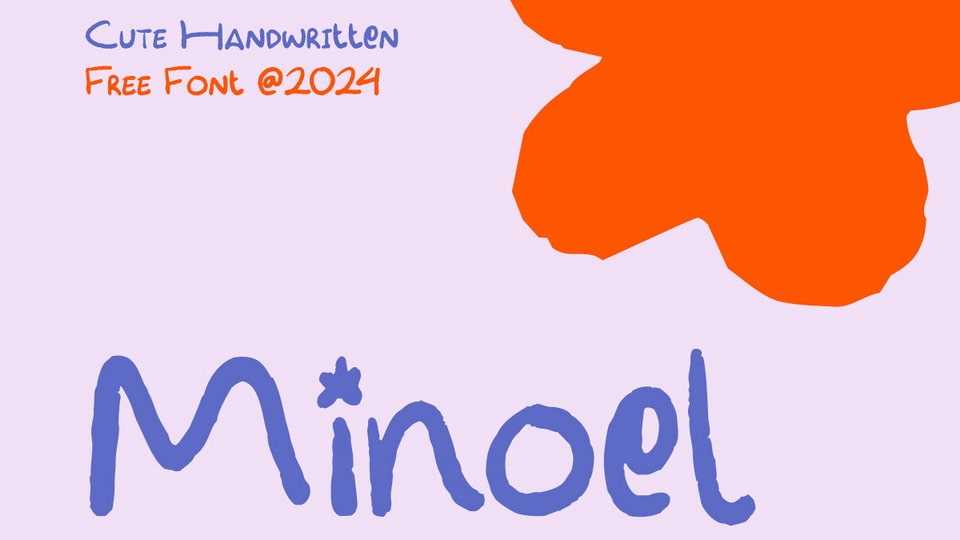
Download Monoel font, an adorable, casual handwriting typeface, ready to add a touch of charm to your font library. Perfect for designs that need a warm, fun vibe.